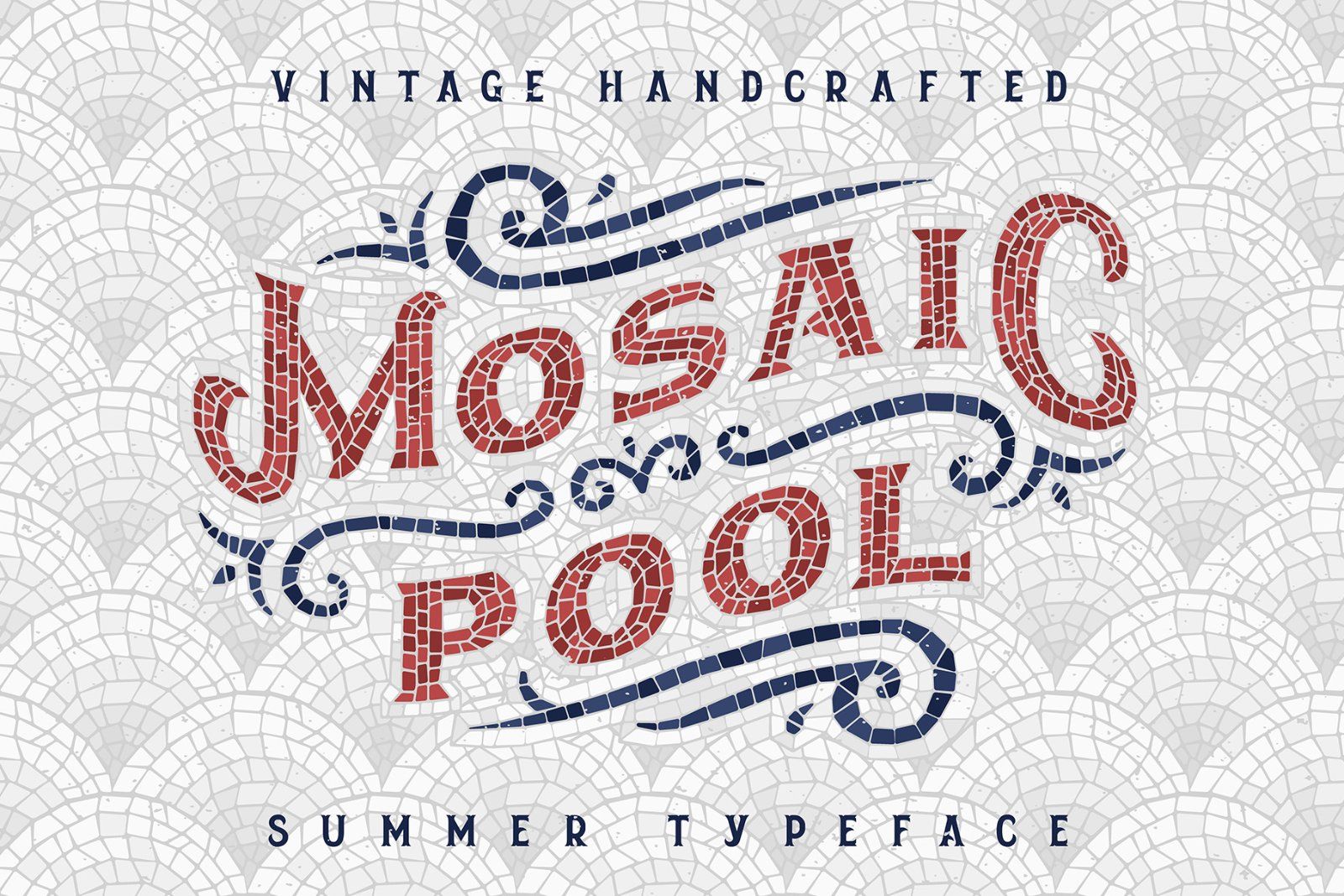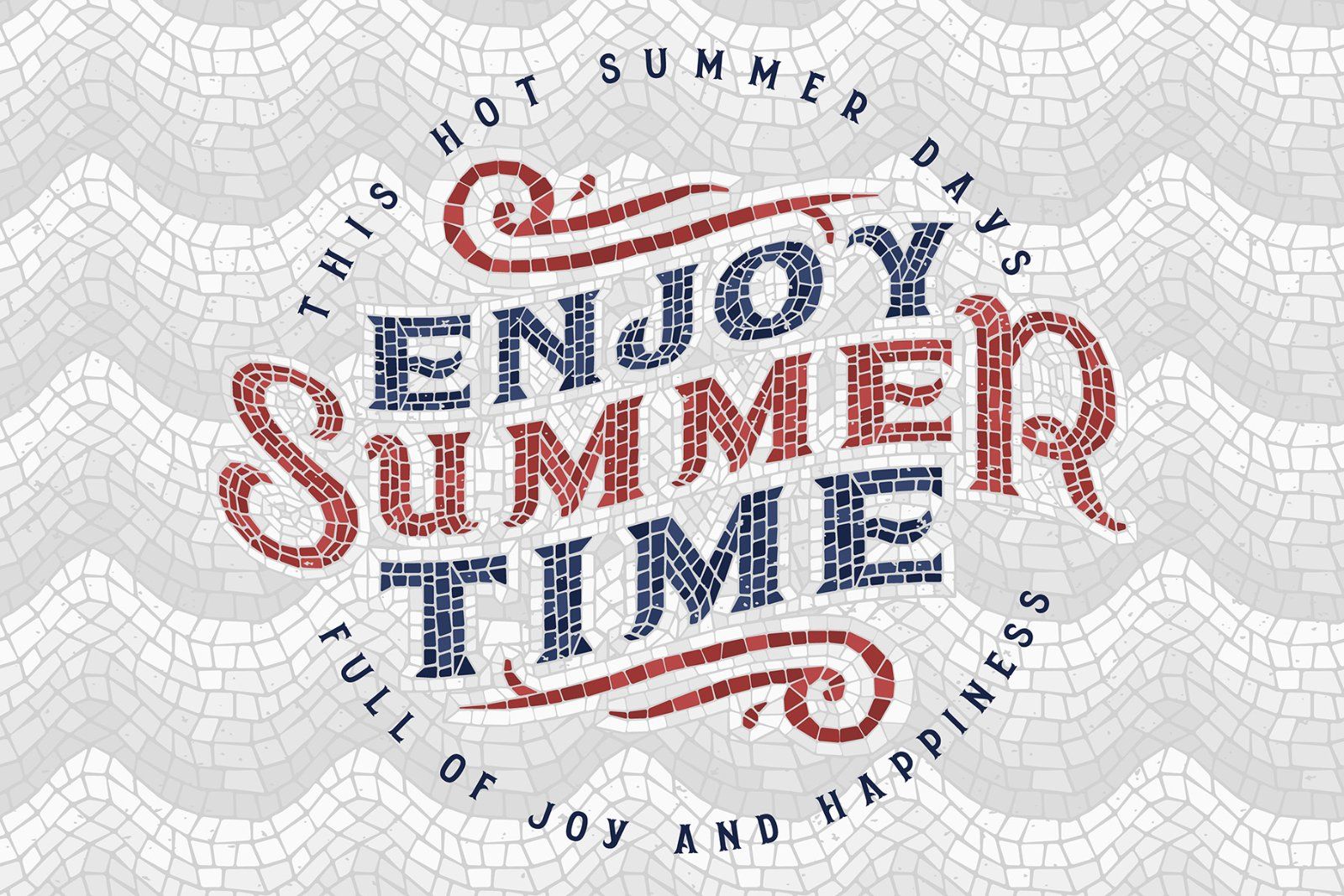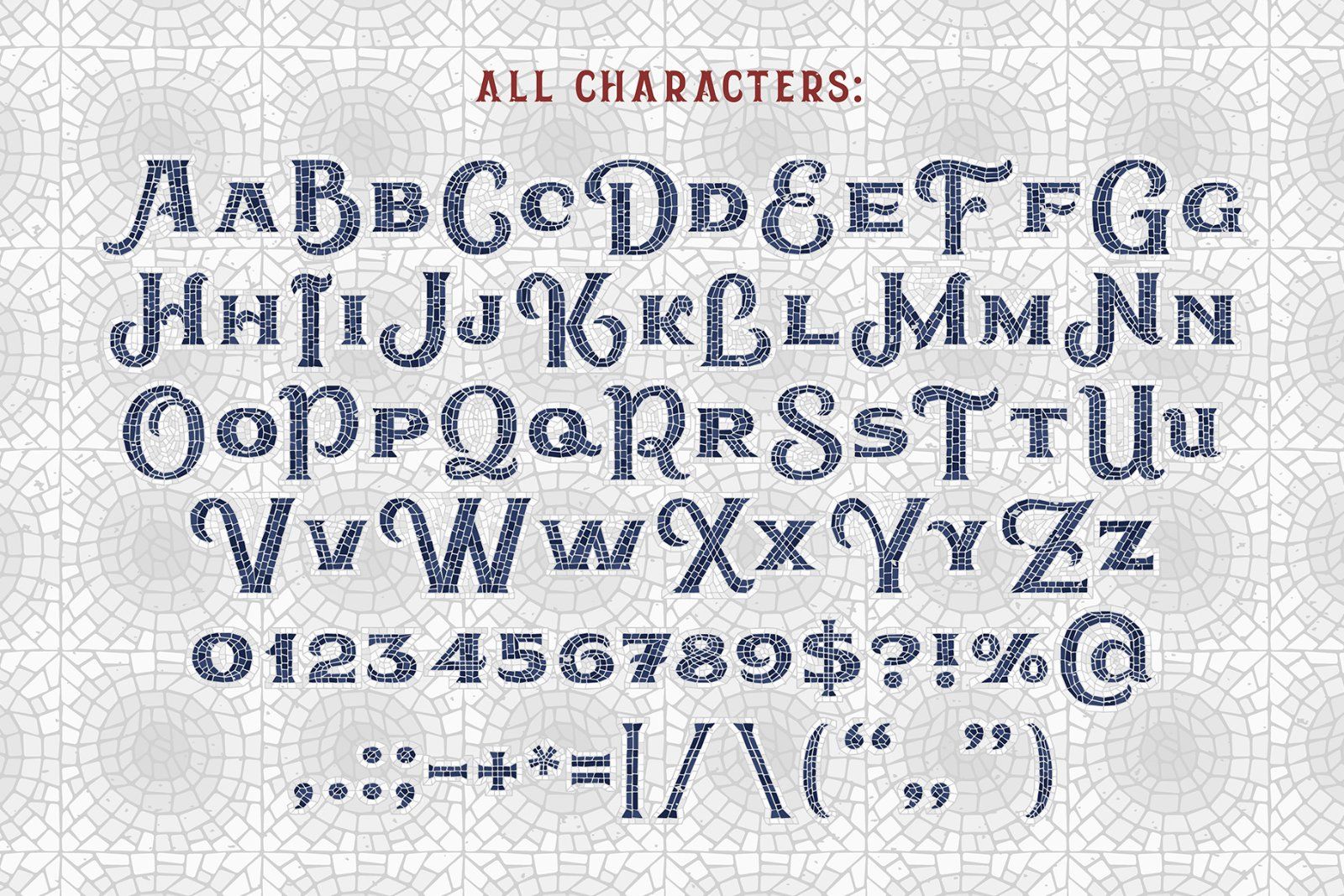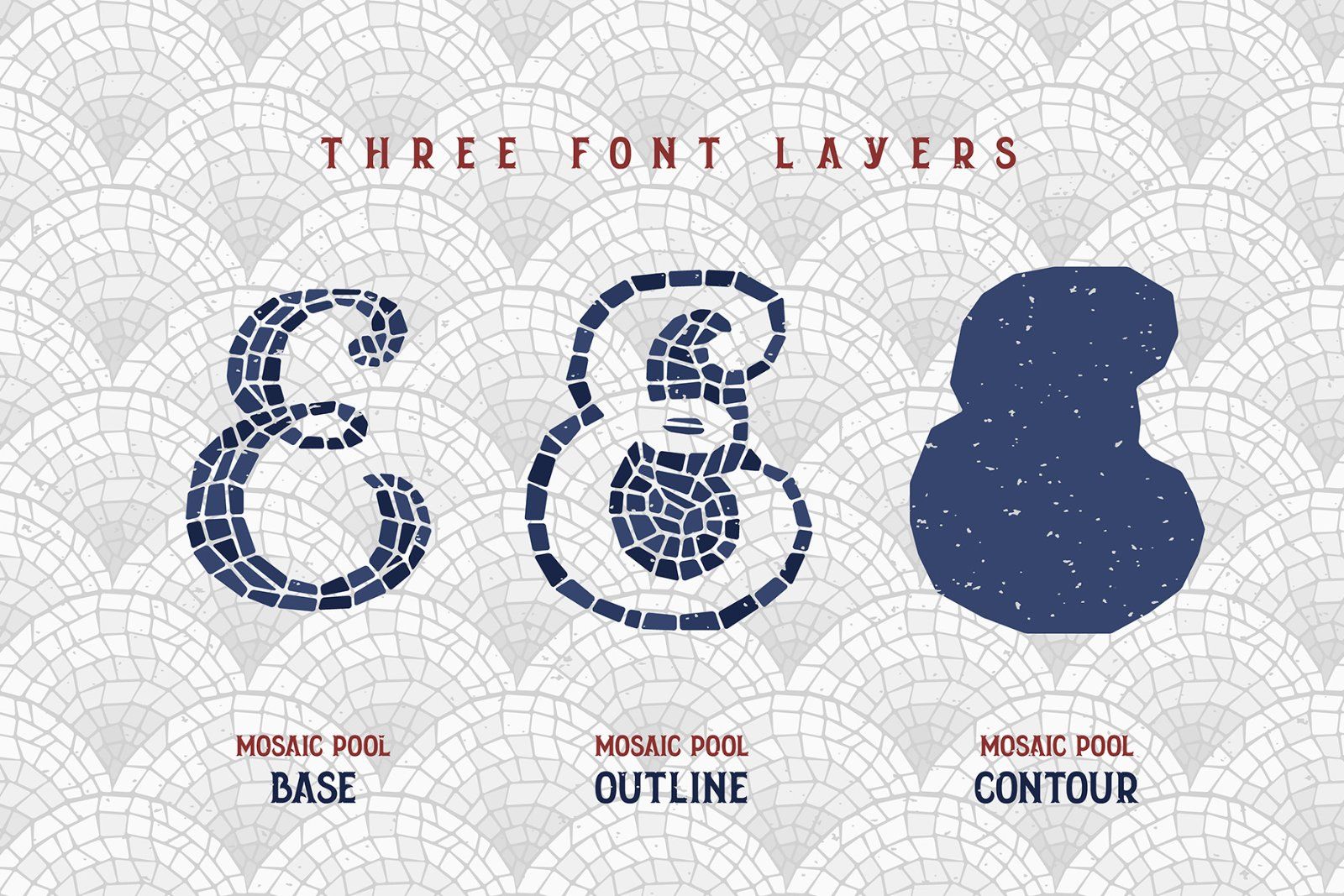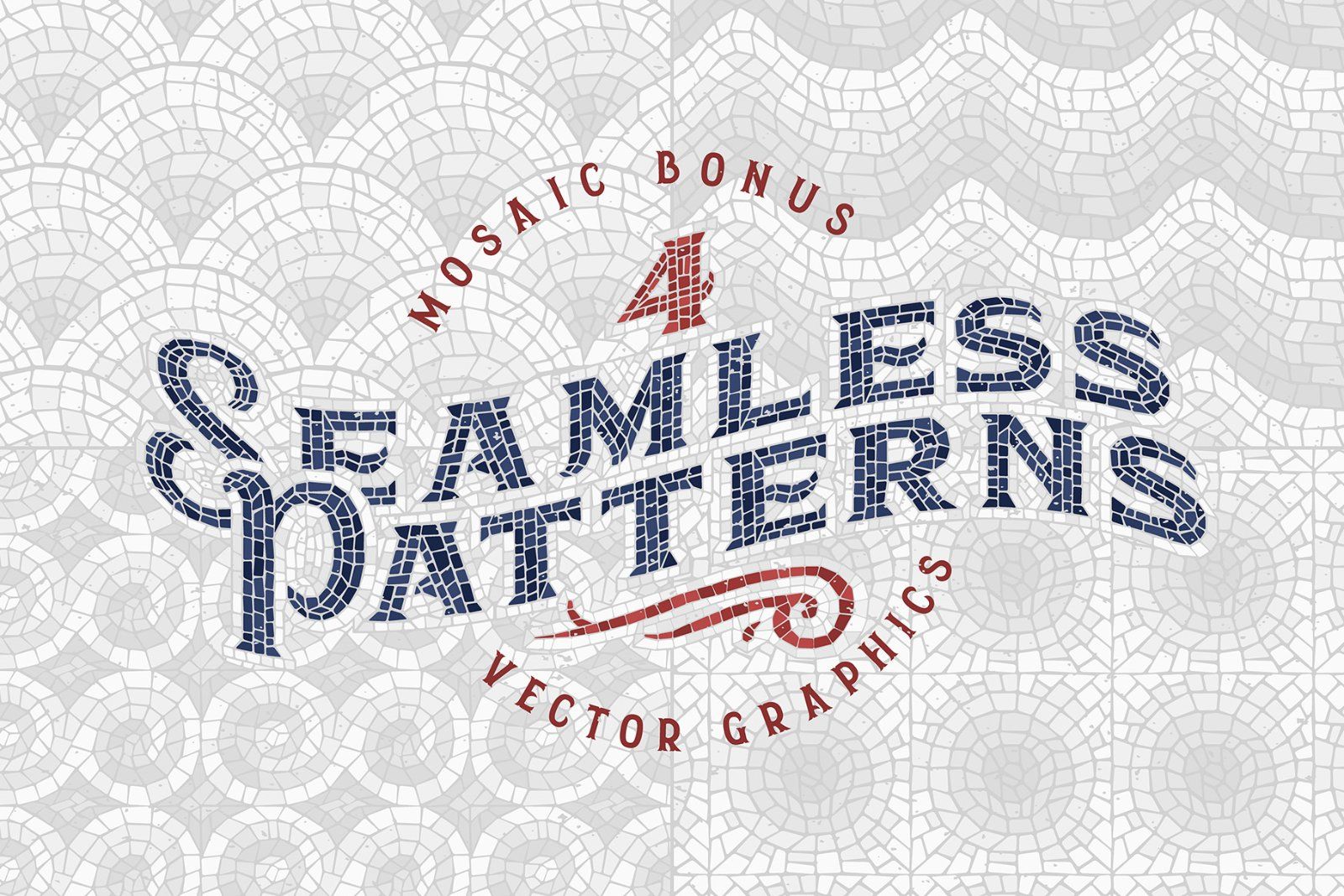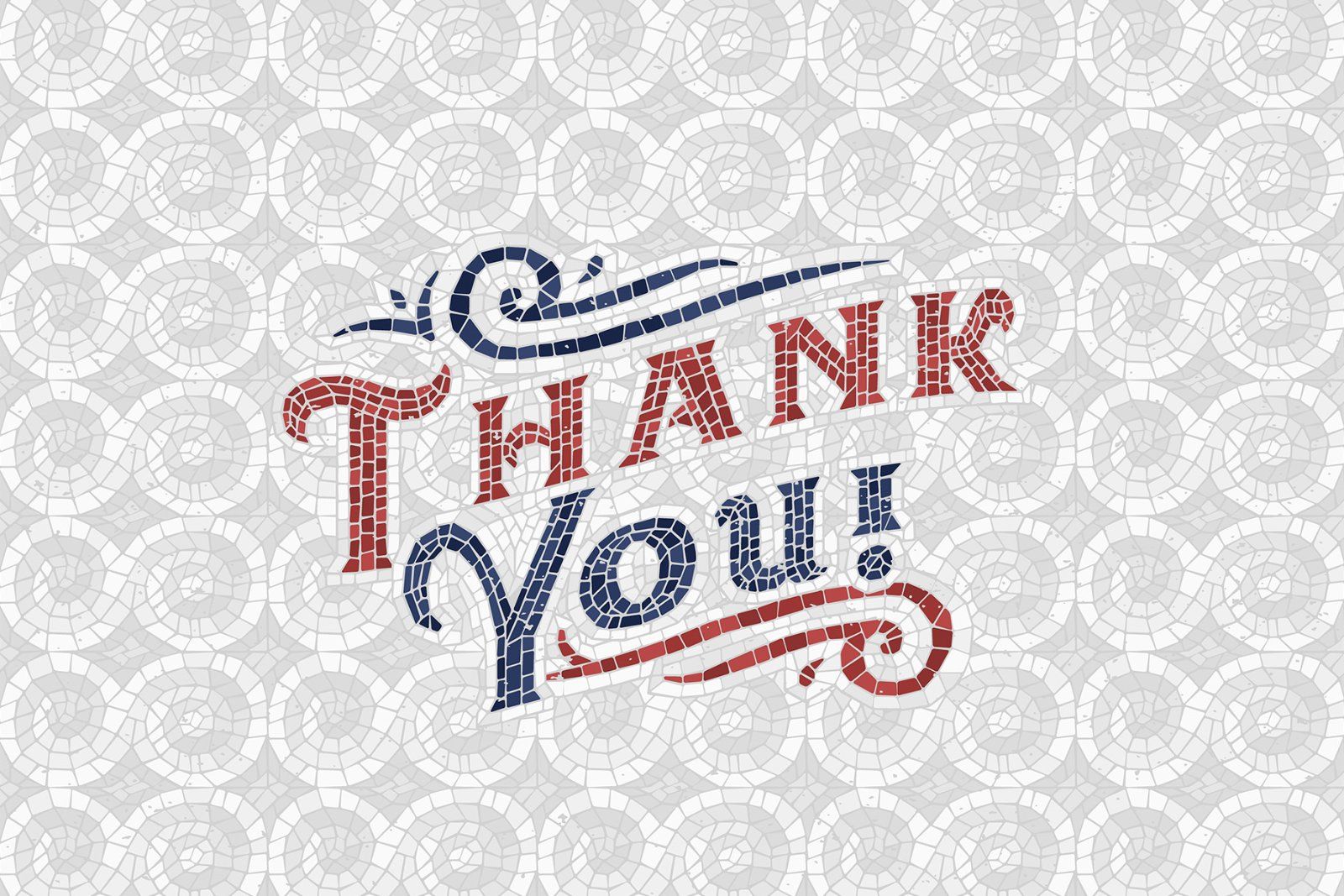
Hi. Introducing a handcrafted font "Mosaic Pool". This typeface consists of three font layers, that makes it easier to recolor and manipulate. Also a vector design stuff is included as a bonus.